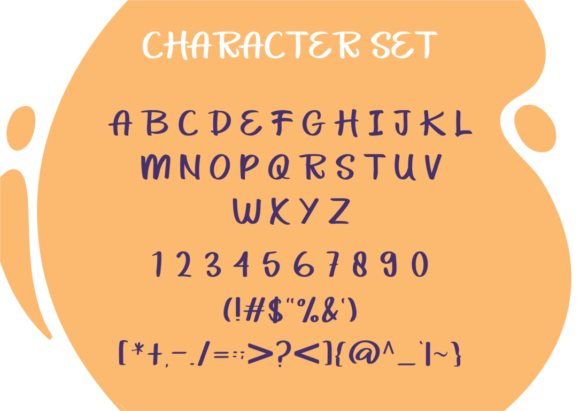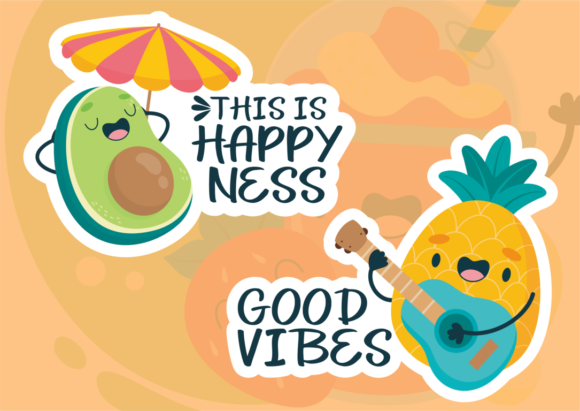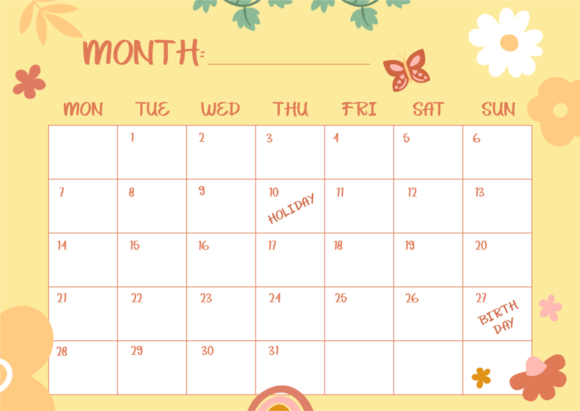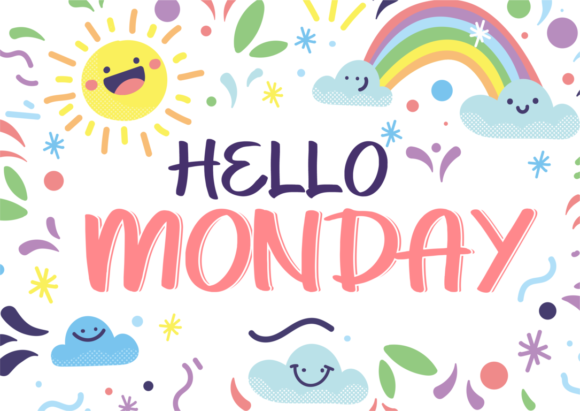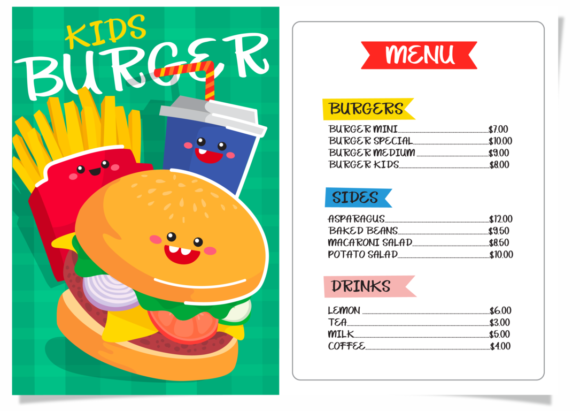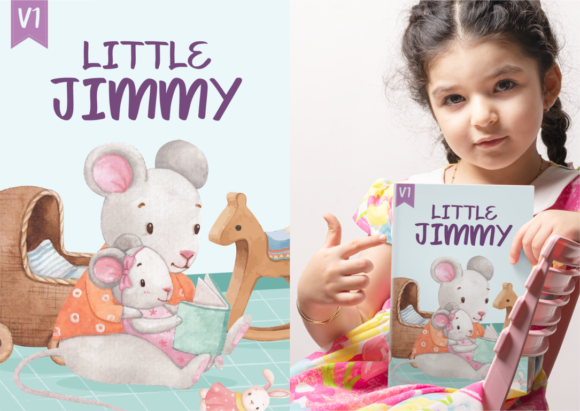
Get Relax Font: Elevate Your Designs with a Laid-Back and Adaptable Display Font
Are you tired of using the same old fonts in your designs? Do you want to add a touch of relaxation and casualness to your creations? Look no further than the Get Relax font. This laid-back and adaptable display font is perfect for designers and crafters looking to elevate their work and add a unique flair to their projects.
The Versatility of Get Relax Font
Get Relax is a versatile font that can be used for a wide range of design projects. Whether you’re working on a logo, brochure, poster, or social media graphics, this font is sure to make a statement. Its adaptability makes it easy to pair with other fonts, and its laid-back vibe ensures that it will add a touch of casualness to even the most formal designs.
Key Features of Get Relax Font
- Laid-back and casual vibe: Get Relax font has a relaxed and casual feel that’s perfect for designs that need a touch of personality.
- Adaptable: This font is highly adaptable and can be used for a wide range of design projects, from logos to social media graphics.
- Display font: Get Relax is a display font, making it perfect for headlines, titles, and other attention-grabbing elements.
- Easily pairs with other fonts: The versatility of Get Relax font makes it easy to pair with other fonts, allowing you to create unique and interesting combinations.
Benefits of Using Get Relax Font
So why should you choose Get Relax font for your designs? Here are just a few benefits of using this amazing font:
- Adds a touch of personality: Get Relax font adds a touch of personality to your designs, making them stand out from the crowd.
- Elevates your creations: This font has the potential to elevate any creation, adding a level of sophistication and style.
- Perfect for creative projects: Get Relax font is perfect for creative projects, such as branding, advertising, and marketing materials.
How to Use Get Relax Font
Using Get Relax font is easy. Here are a few tips for incorporating this amazing font into your designs:
- Use it as a headline font: Get Relax font is perfect for headlines and titles, adding a touch of personality and style to your designs.
- Pair it with other fonts: Experiment with pairing Get Relax font with other fonts to create unique and interesting combinations.
- Use it for logos and branding: This font is perfect for logos and branding, adding a touch of casualness and personality to your brand.
- Experiment with different colors: Get Relax font looks great in a variety of colors, so don’t be afraid to experiment and find the perfect color for your design.
Get Relax font is a laid-back and adaptable display font that’s perfect for designers and crafters looking to elevate their work. With its versatility, key features, and benefits, this font is sure to become a staple in your font library. Whether you’re working on a logo, brochure, poster, or social media graphics, Get Relax font is the perfect choice. So why wait? Download Get Relax font today and start creating amazing designs that stand out from the crowd.